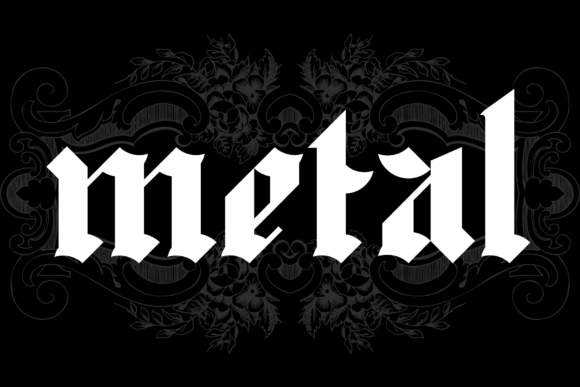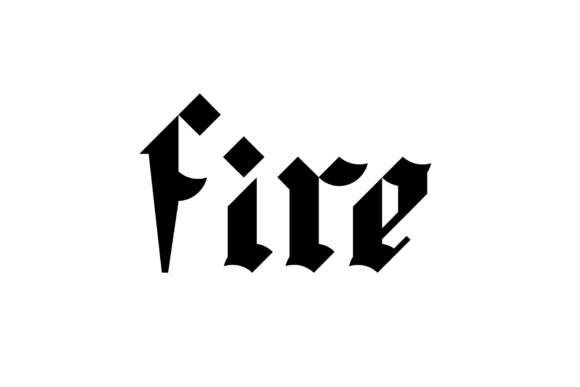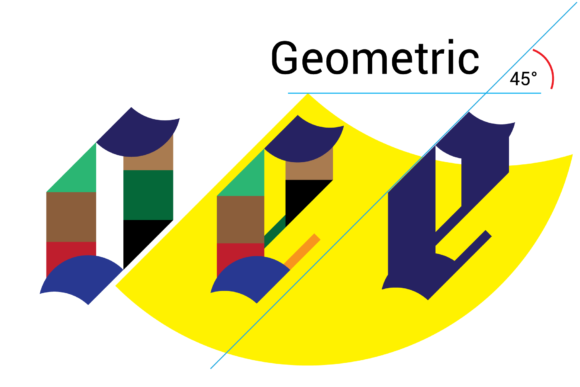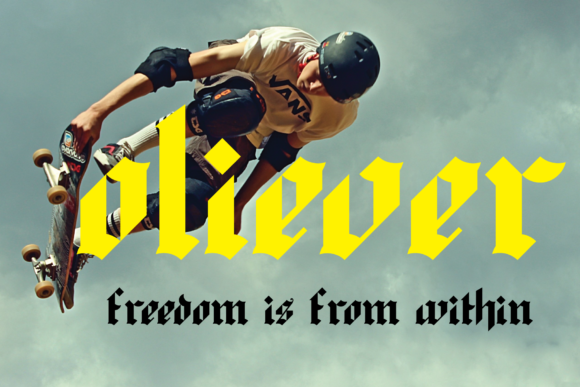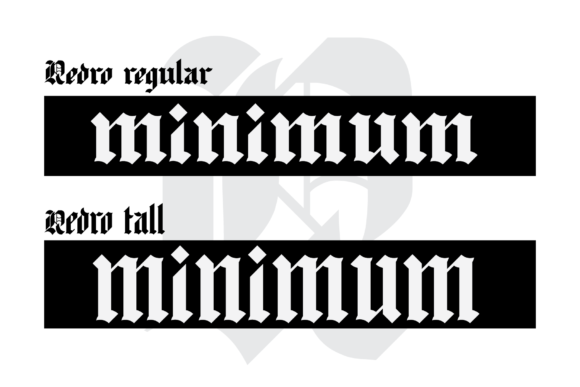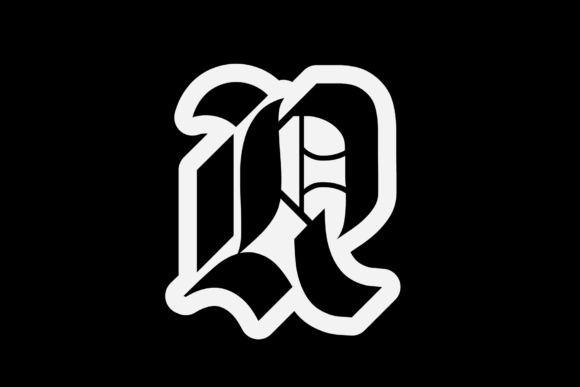
Introduction to Redro Font
Redro is a geometrical blackletter.
It has a great and modern look It will elevate a wide range of design projects to the highest level, be it branding, headings, wedding designs, invitations, signatures, logos, labels, and much more.